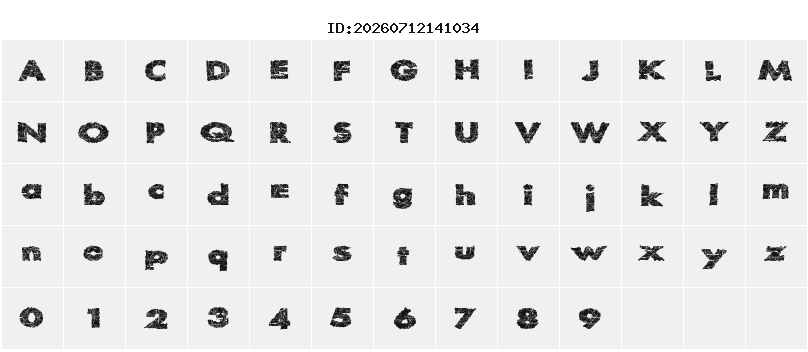
ReadyStart Preview
• Font Name: ReadyStart
• Designer: Xerographer Fonts Max Infeld
• Manufacturer: Xerographer Fonts
• Description: Made at Xerographer Studios in Ojai,CA
About ReadyStart.ttf
ReadyStart.ttf is a modern, elegant sans-serif font designed for ultimate readability and visual harmony. Perfect for branding, headlines, web design, and print materials.